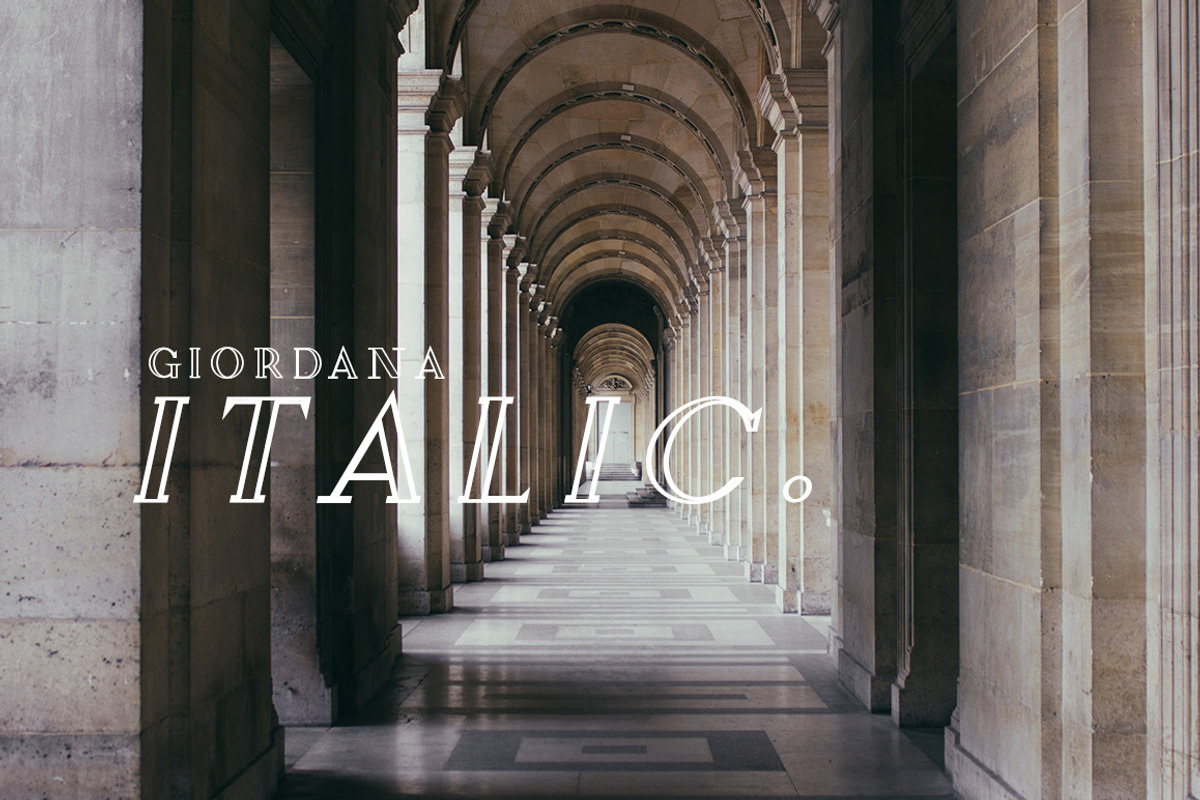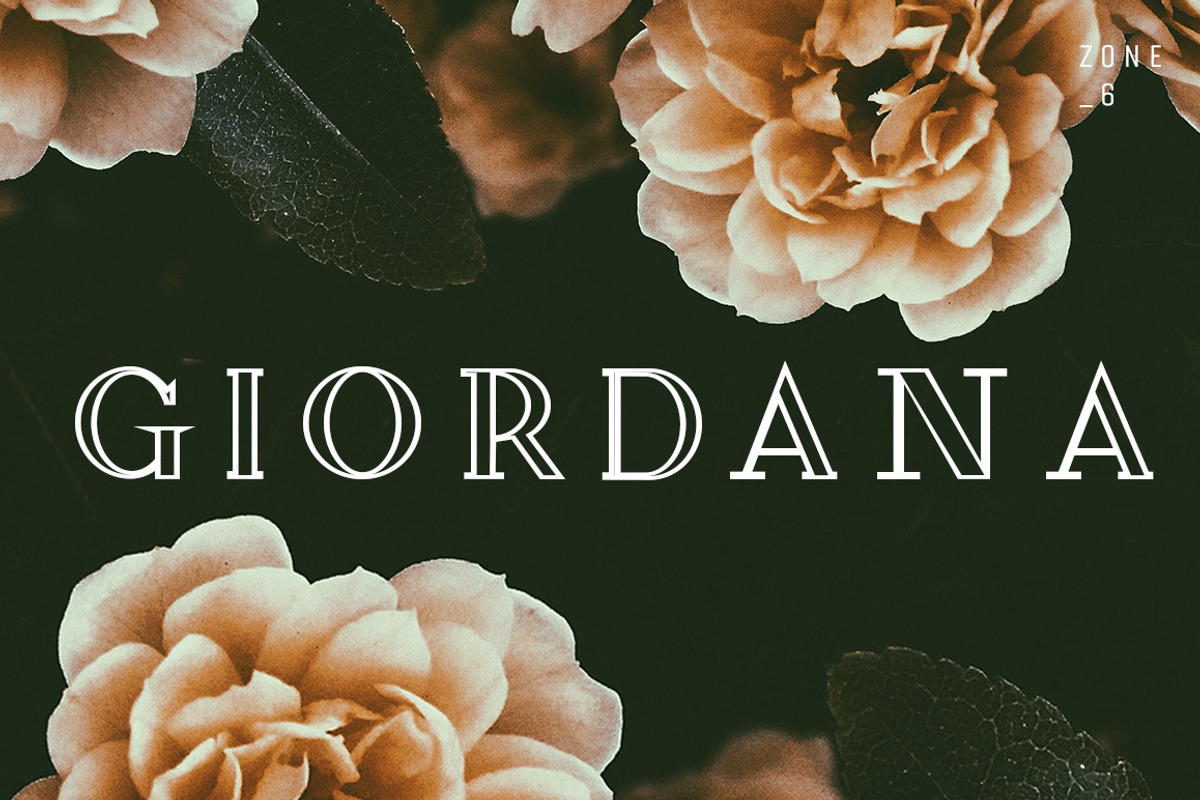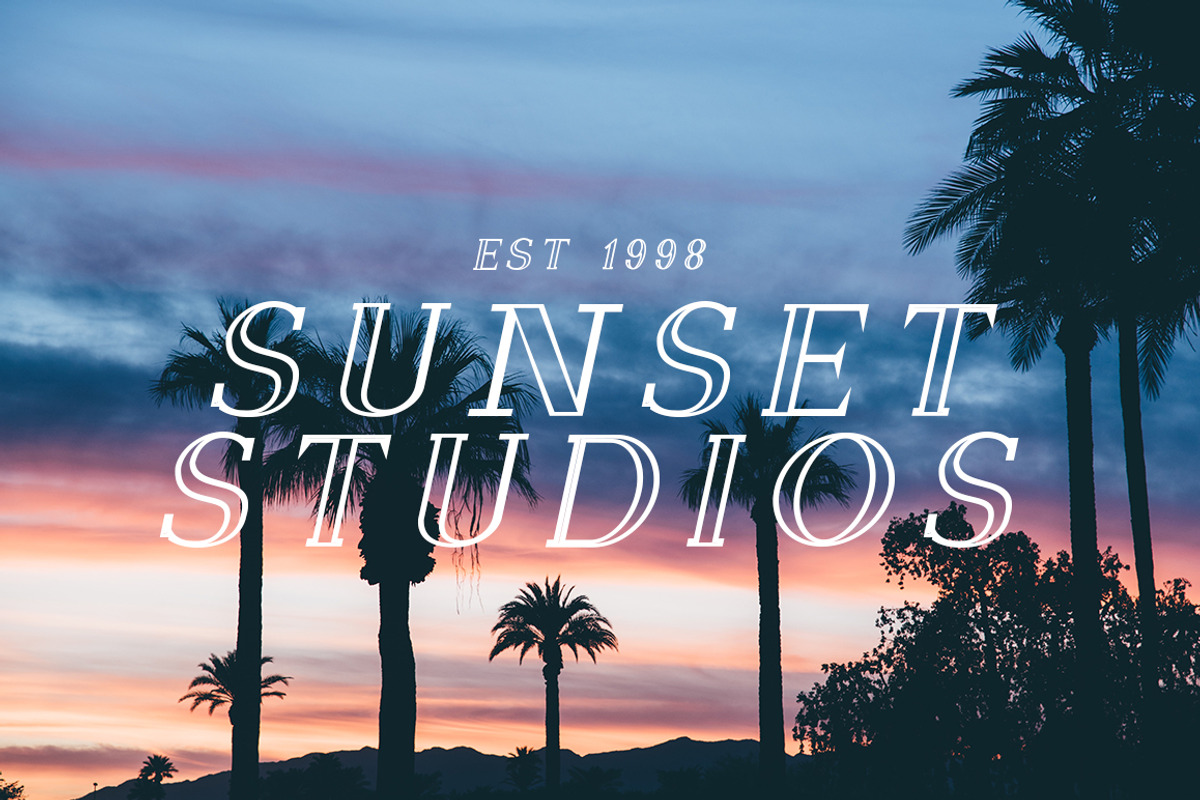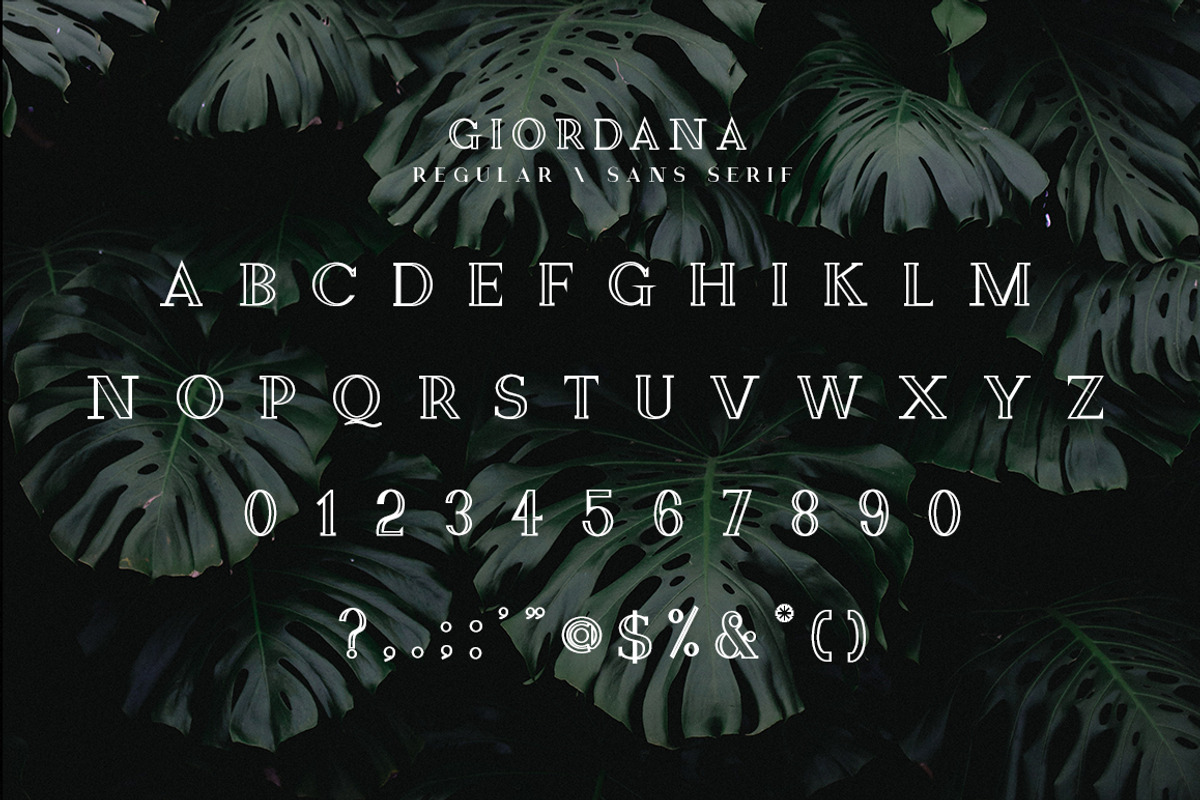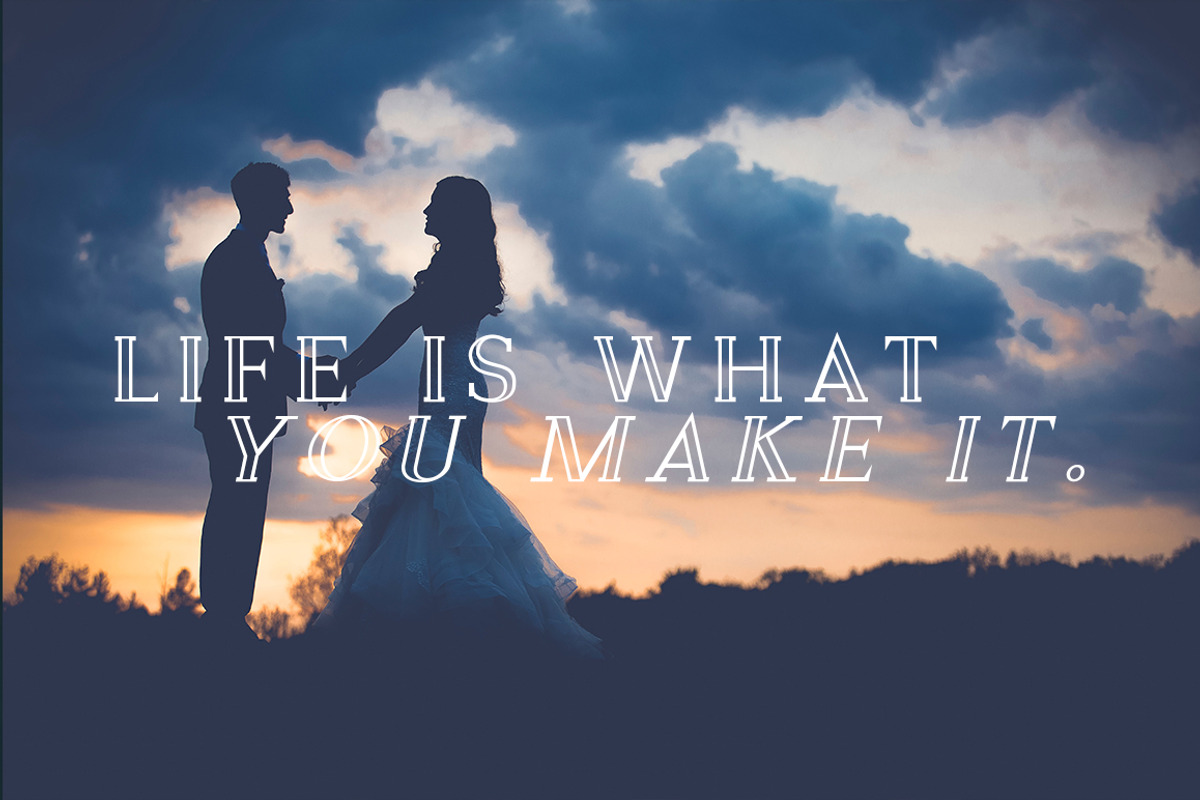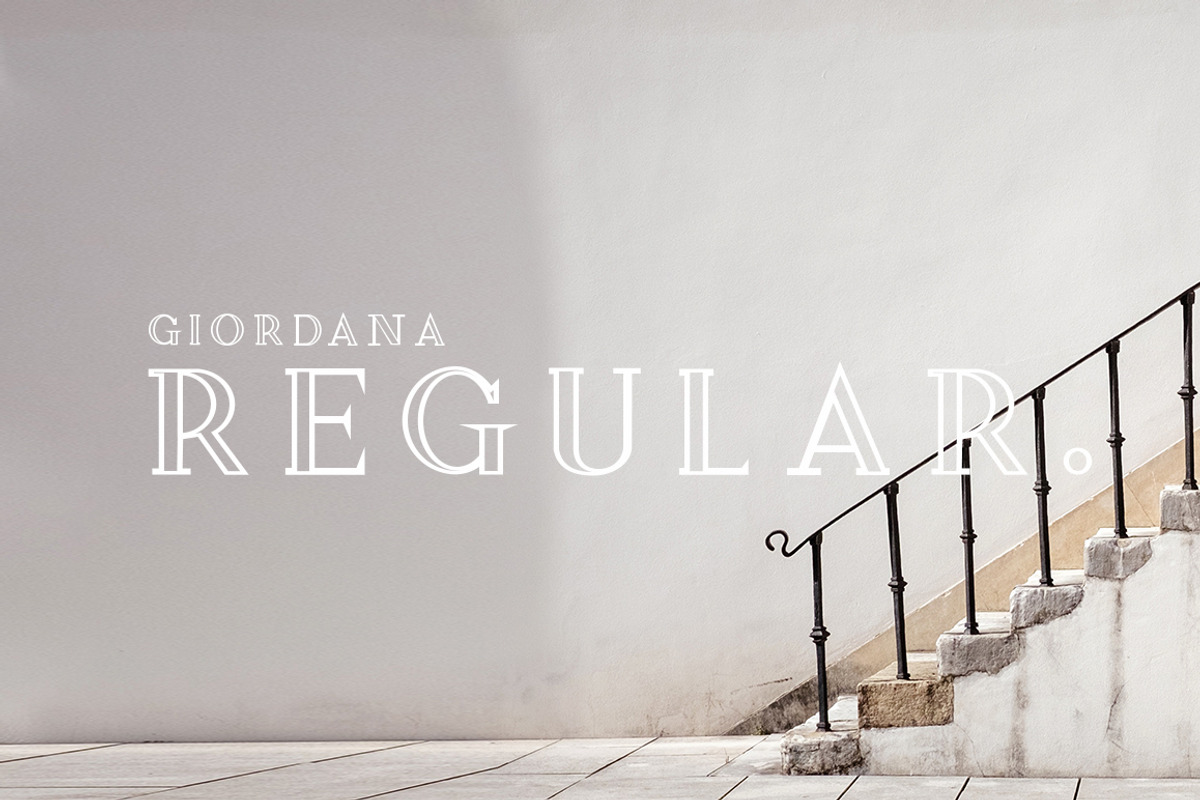
Giordana | Font Family
Giordana Instantly Brings Class And Prestige To Designs.
Giordana is a striking yet subtle outline serif font. Her Italianate style instantly adds a luxurious feel to any project you choose to use her for. It's perfectly weighted lines are balanced alongside the classic serifs, helping you create stunning, up-to-date, yet timeless designs.
Giordana can be used for corporate projects, branding, publishing, editorial, and logotype but is perfect for wedding stationery, business cards, signage, and clothing, jewellery or perfume branding.
Two fonts included - regular and italic
Numbers and punctuation included
Optimized kerning for aesthetic and highly readable texts.